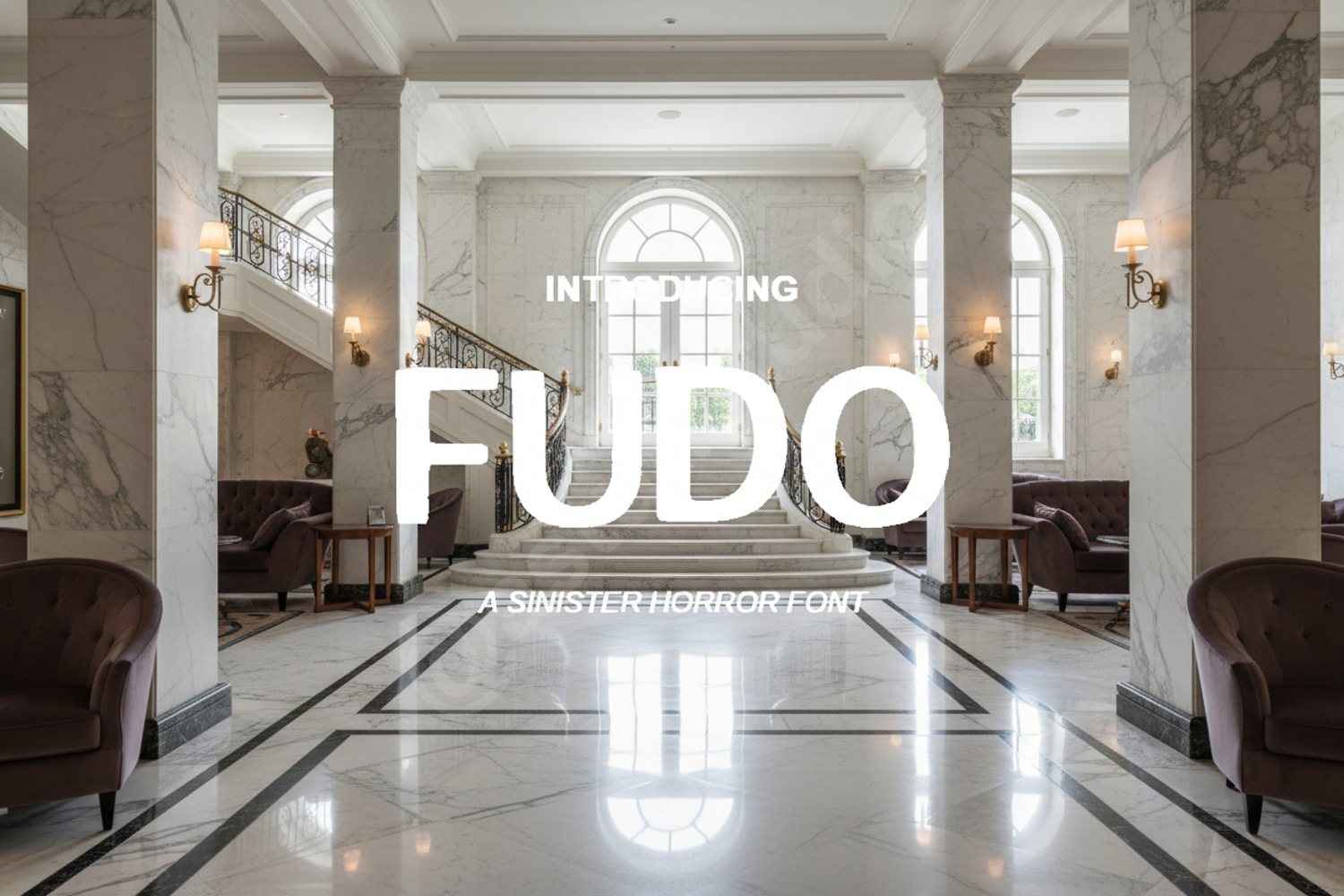
Fudo - Modern Minimalist Display Font
Fudo
Elevate your design aesthetic with Fudo, a premium display font meticulously crafted for professionals who value clarity and modern sophistication. Fudo features balanced proportions and a clean silhouette, making it an essential addition to any designer's toolkit. Whether you are building a brand from the ground up or refining a high-end editorial layout, Fudo provides the versatility and impact needed to stand out in a crowded market.
- Full Uppercase and Lowercase Alphabet
- Comprehensive Numbers and Punctuation
- Multilingual Character Support
- Branding and Visual Identity: Create memorable logos and brand marks with a professional edge.
- Editorial Design: Perfect for magazine headers, book covers, and stylish layouts.
- Digital Presence: Enhance website typography and social media content for better engagement.
- Product Packaging: Deliver a premium feel to high-end product labels and boxes.
- Advertising: Craft bold headlines for posters, banners, and digital marketing materials.